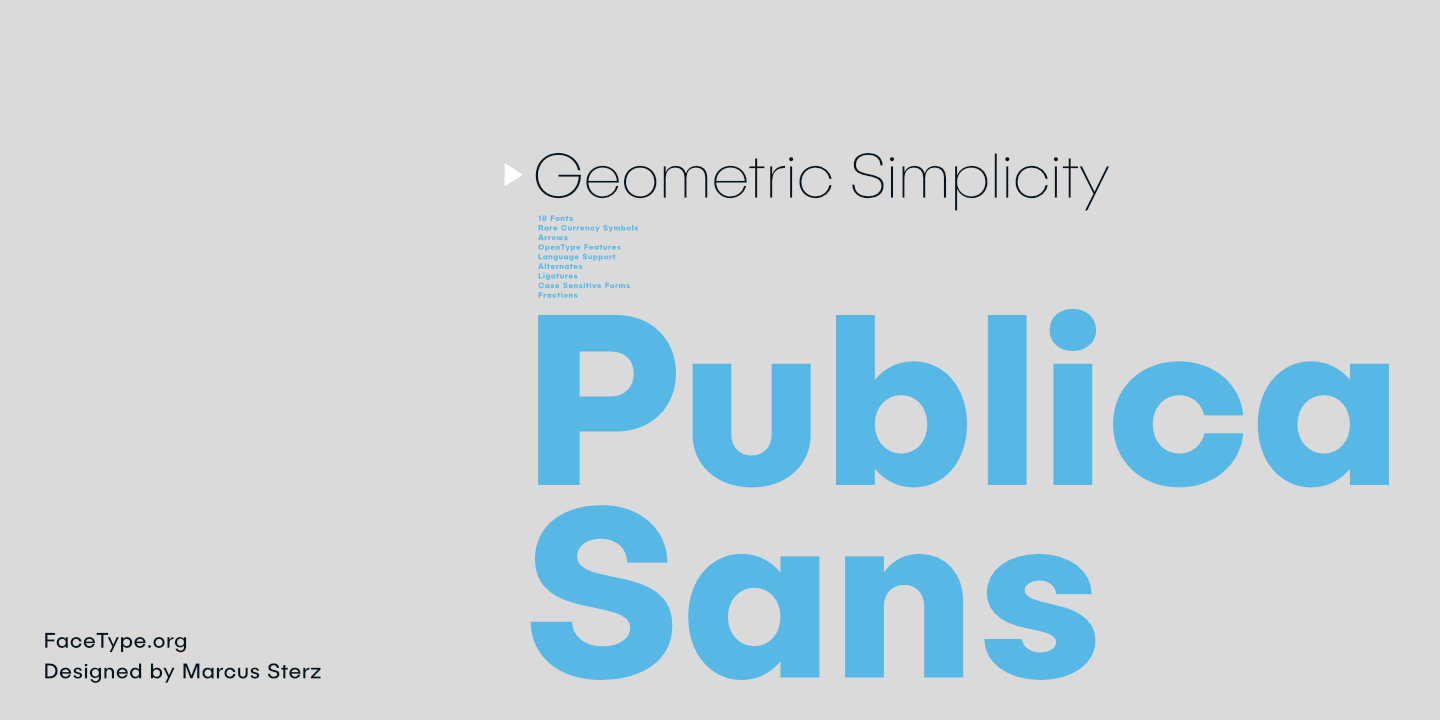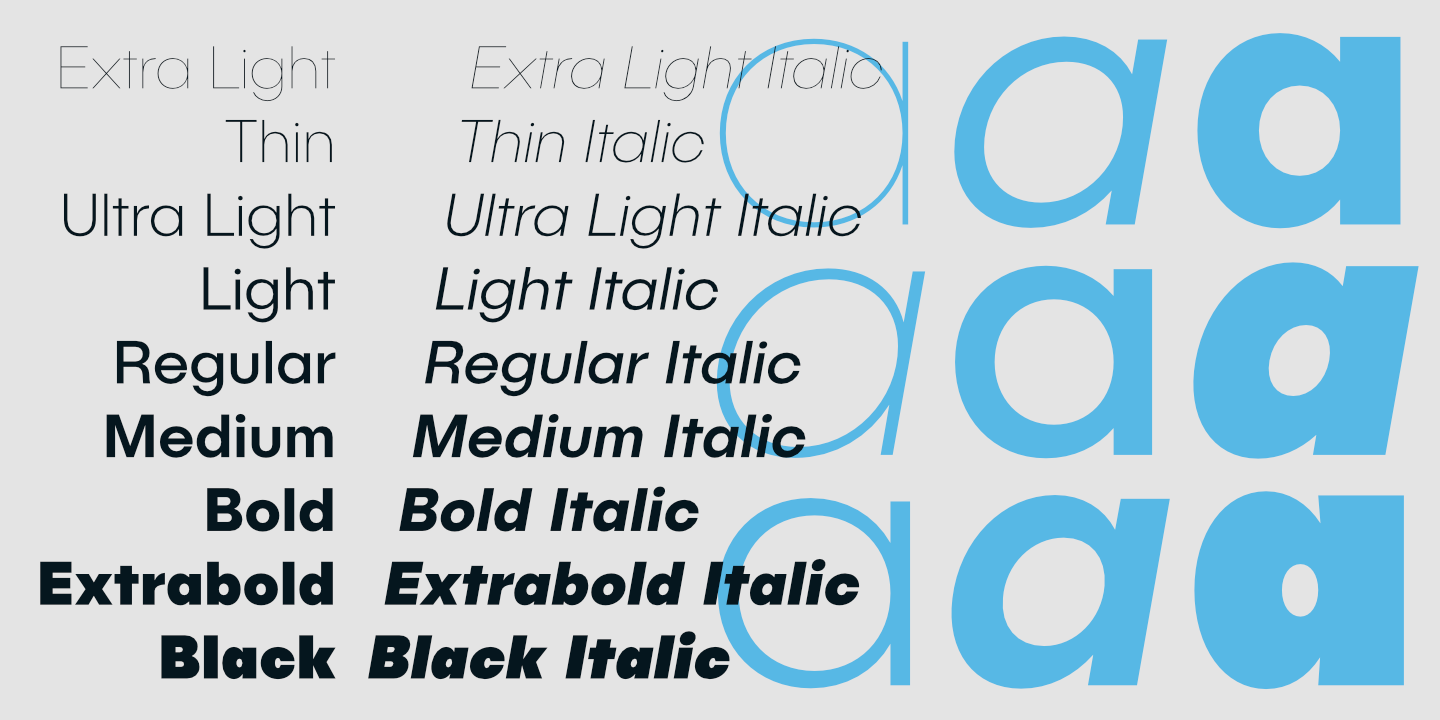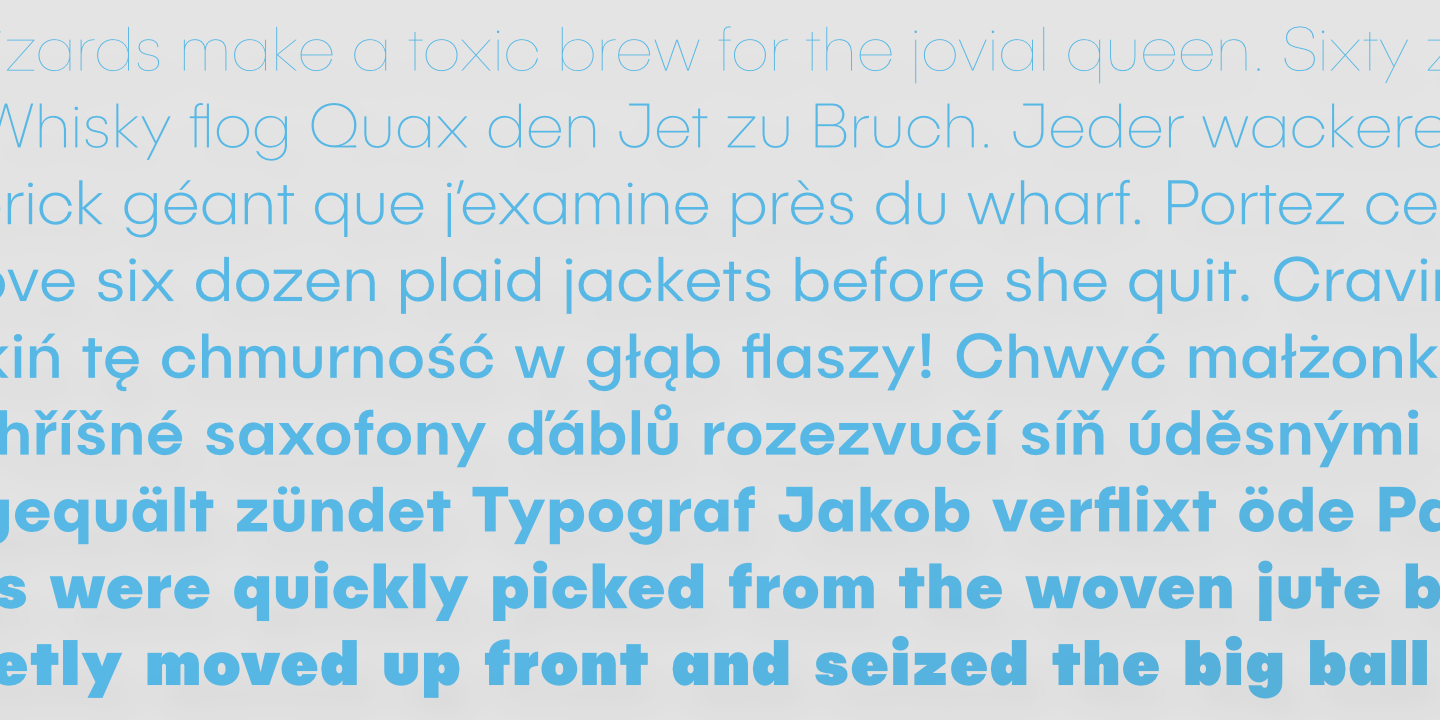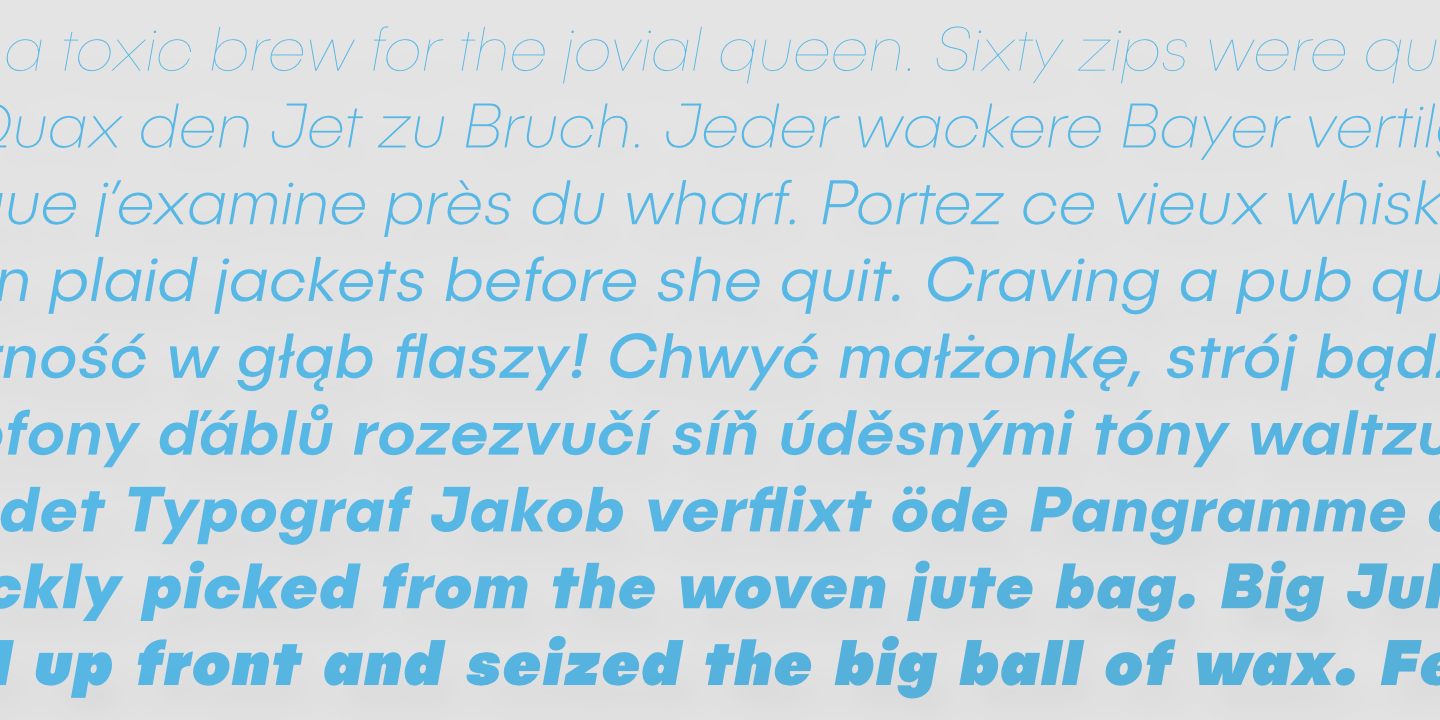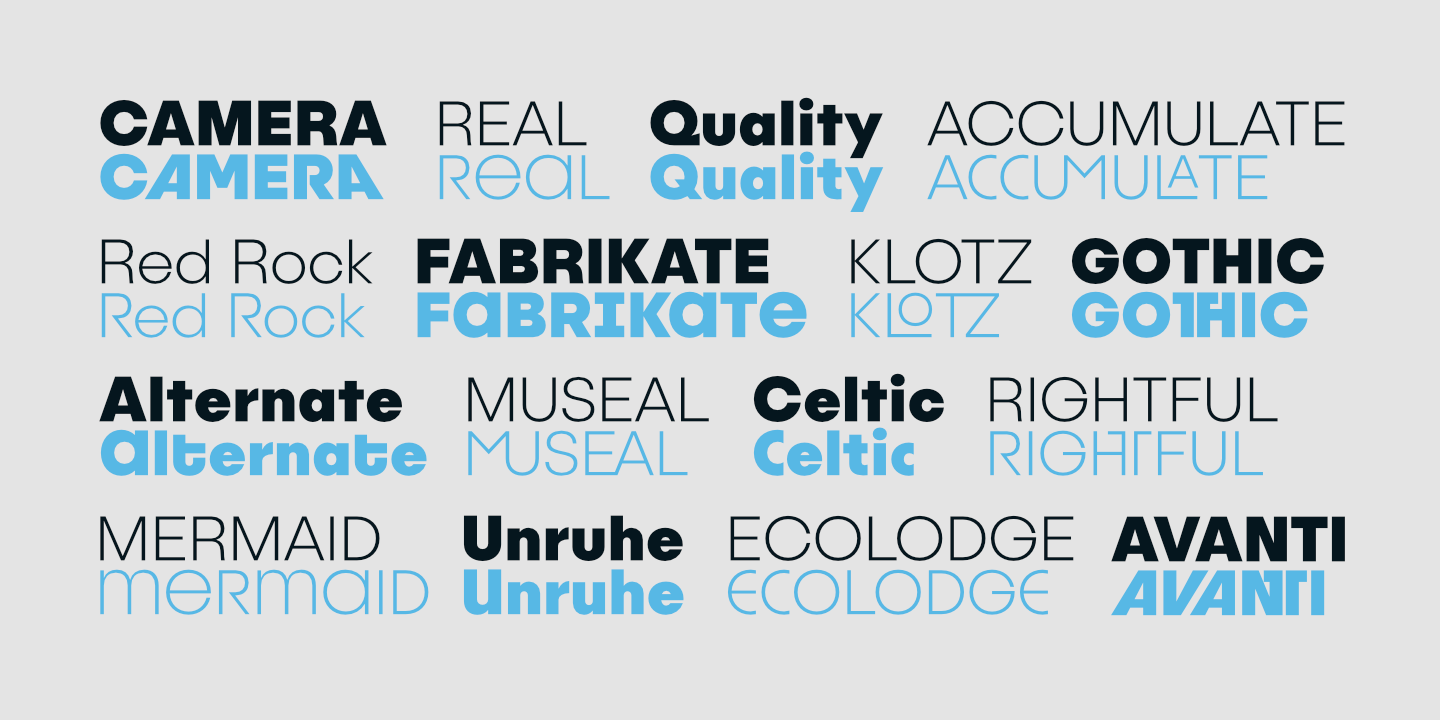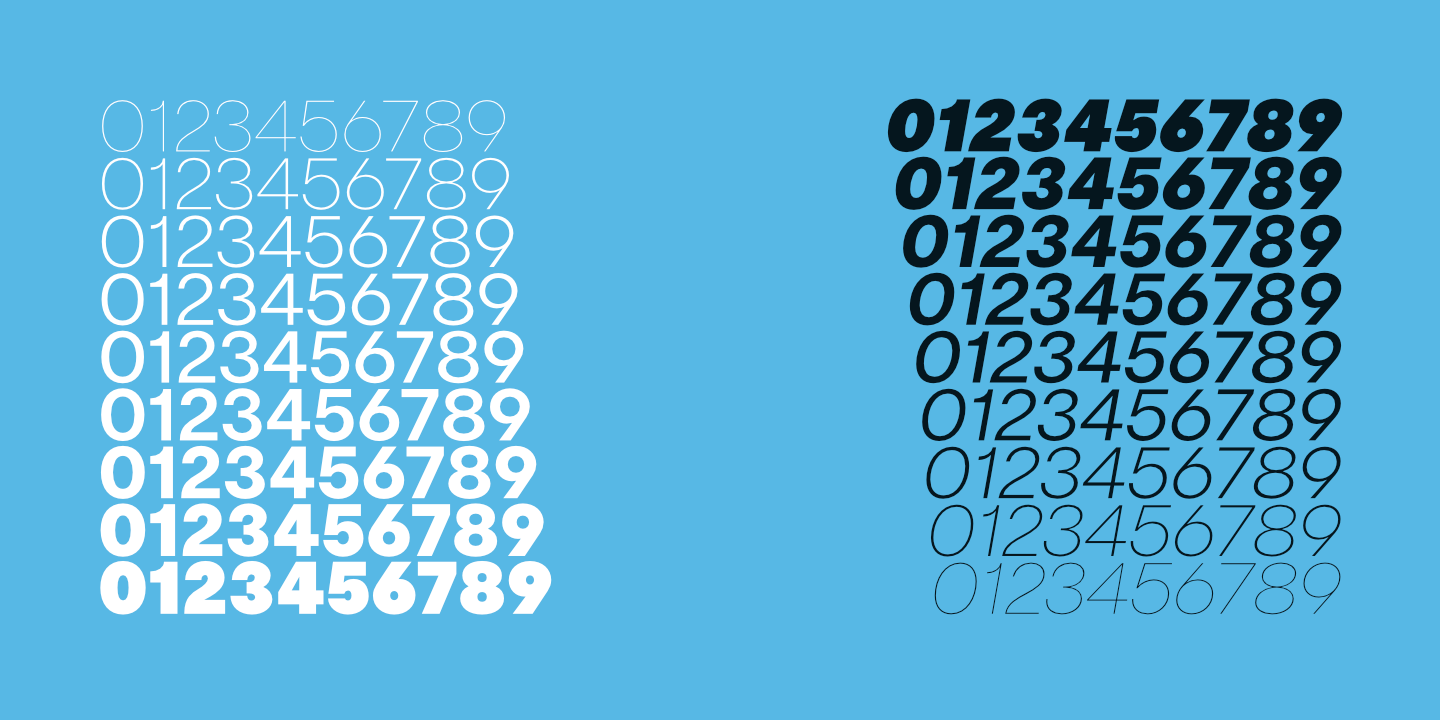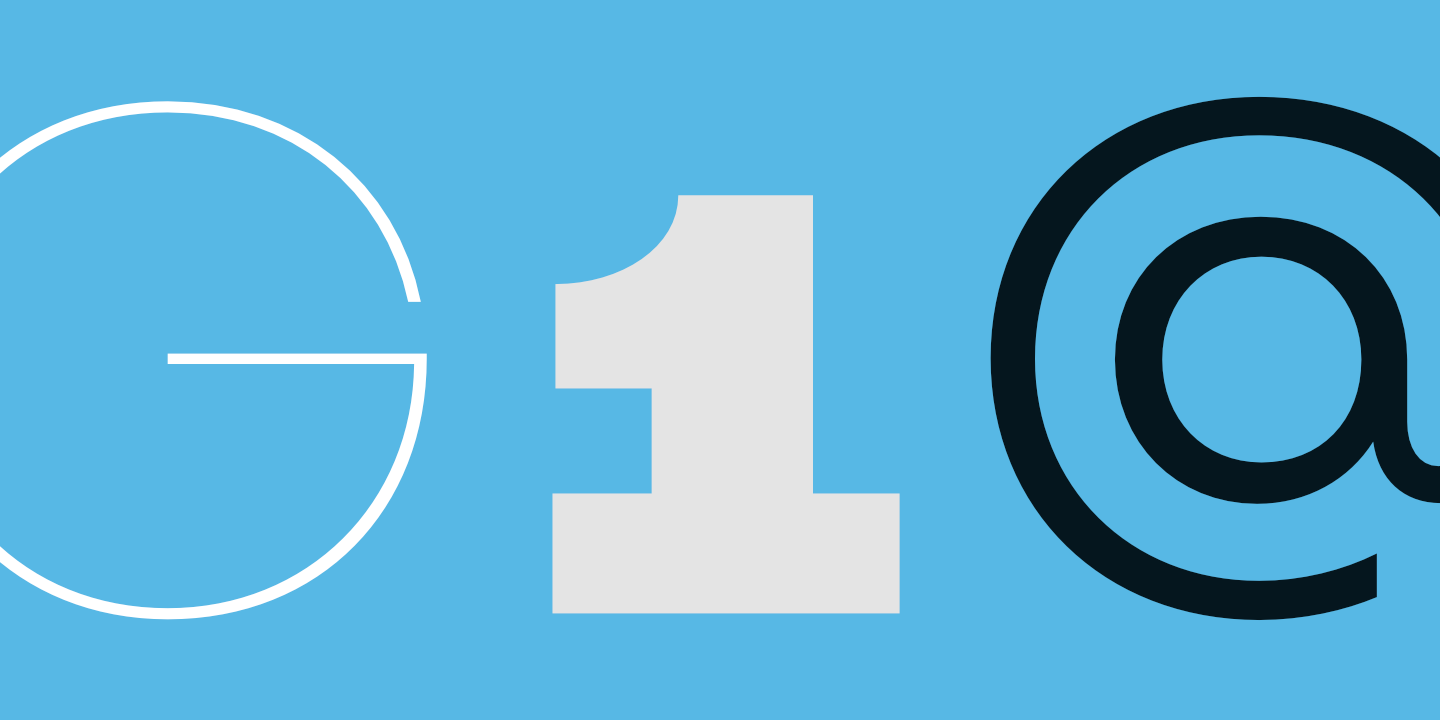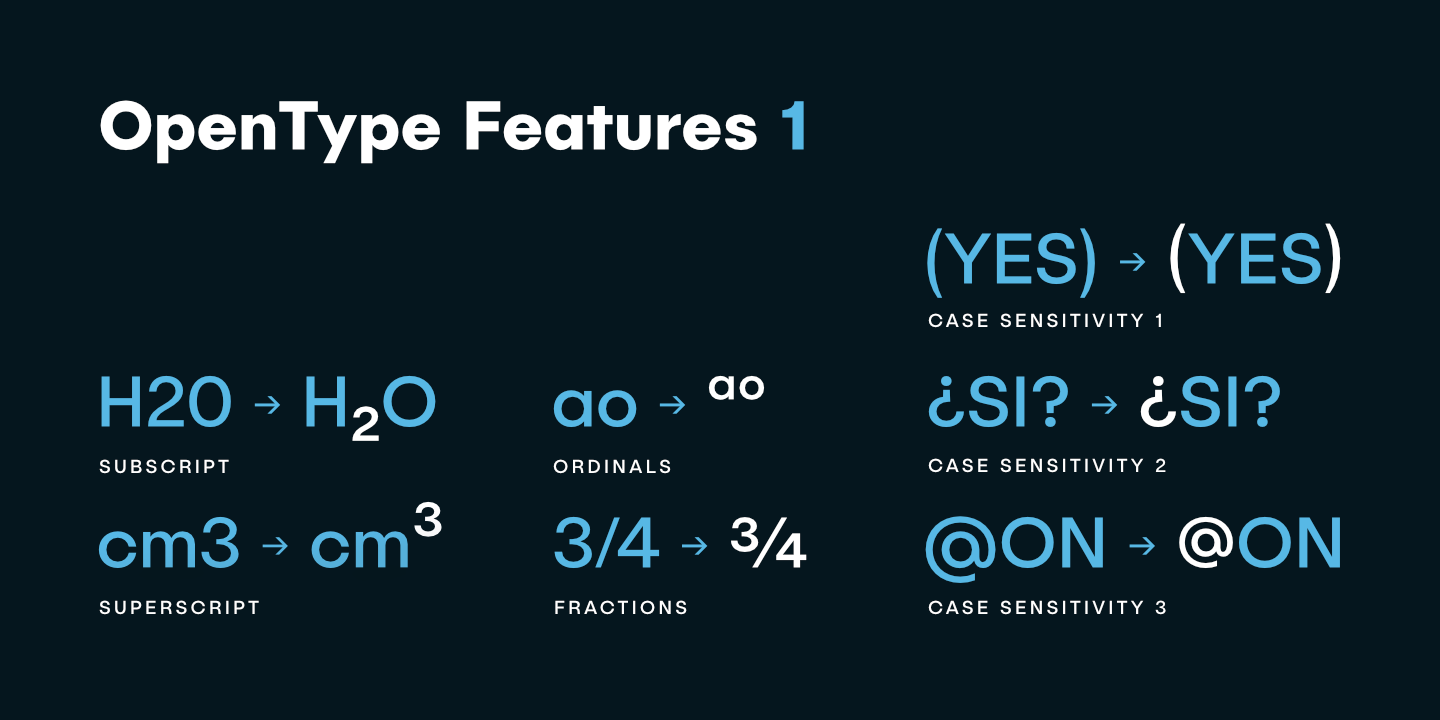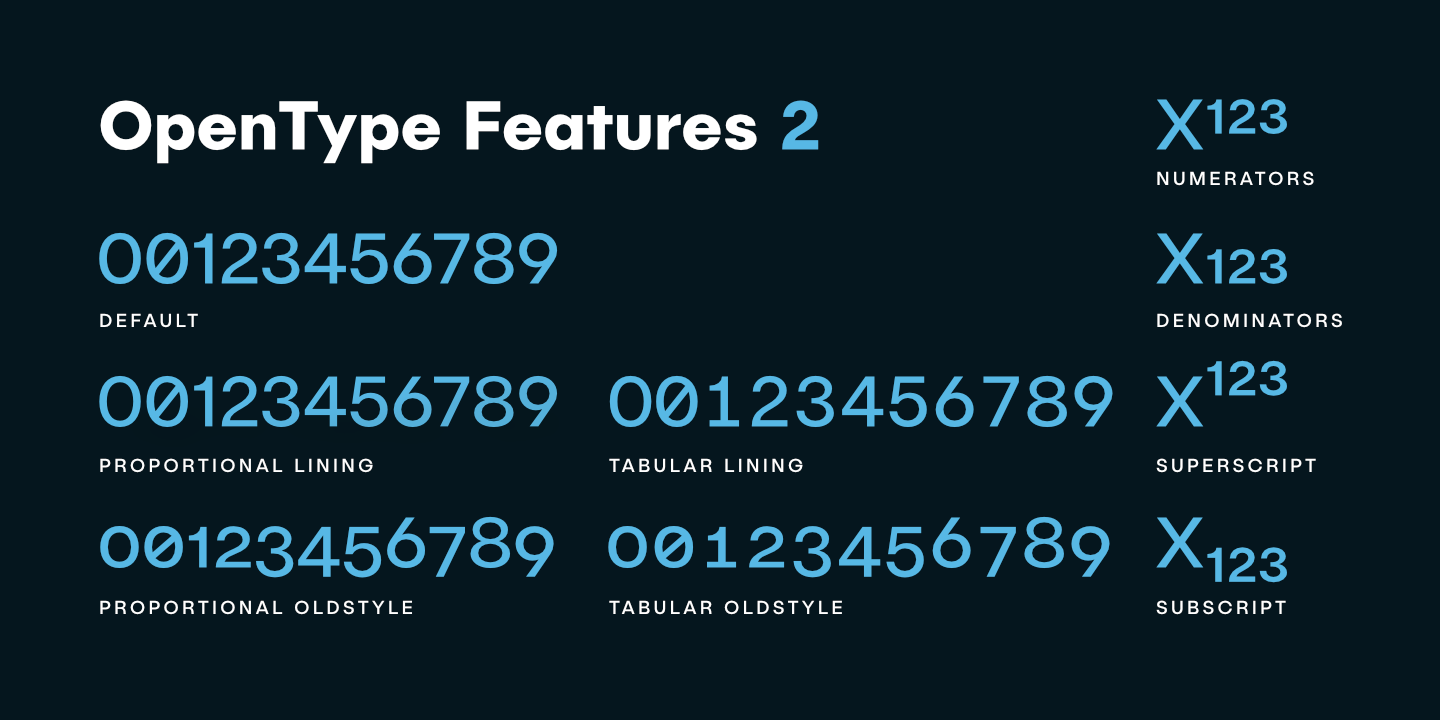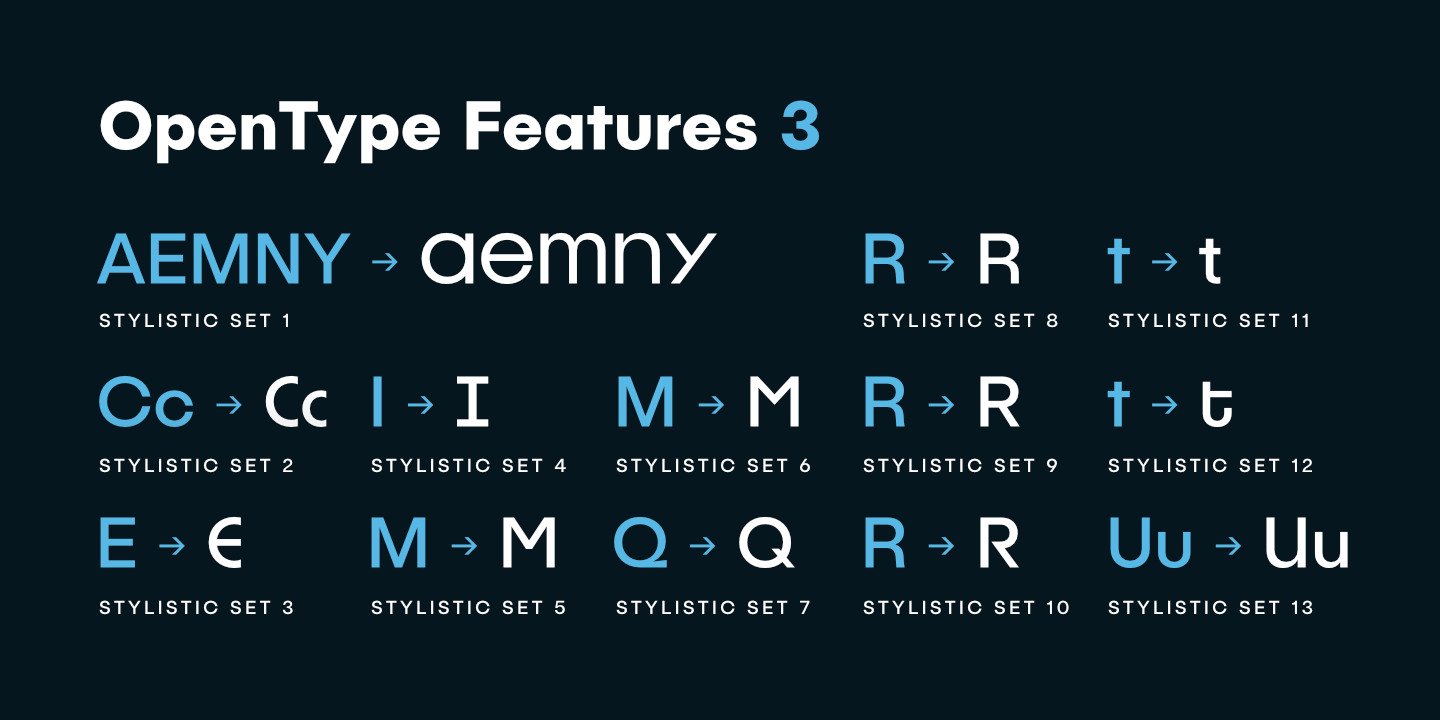
‘Publica Sans’ is a clean geometric typeface, equipped with a variety of OpenType features to give you all you need for great typography: Alternates, arrows, rare currency symbols, case sensitive forms, various sets of figures and discretionary ligatures. It works well as an alternative to Helvetica, Avantgarde and Futura.
Alternates give your typography a certain spin with the variety of alternate letters provided. You need to set prices in exotic countries? No problem: Publica Sans gives you loads of rare currency symbols. Publica Sans provides 6 sets of figures, like lining, tabular, oldstyle, numerators ... Discretionary ligatures can make your logo or headline look spicy. So there are plenty of them.